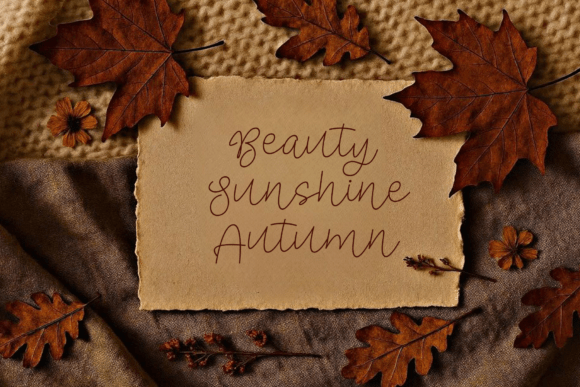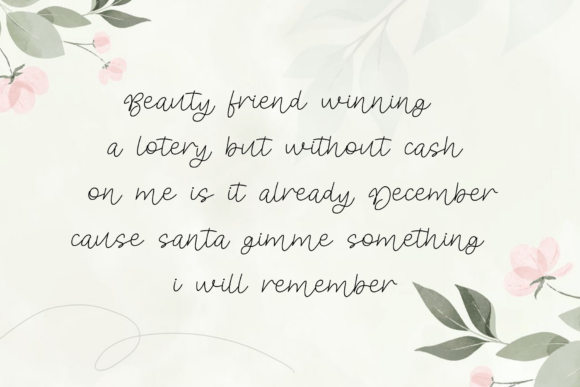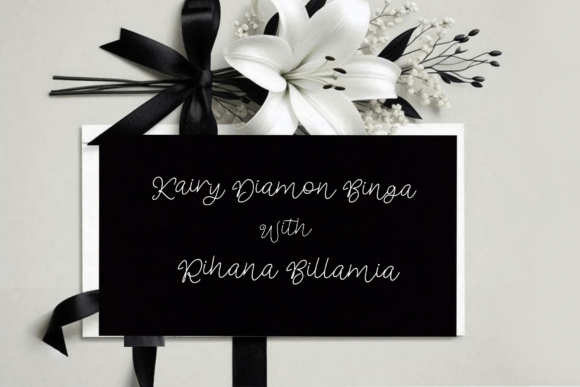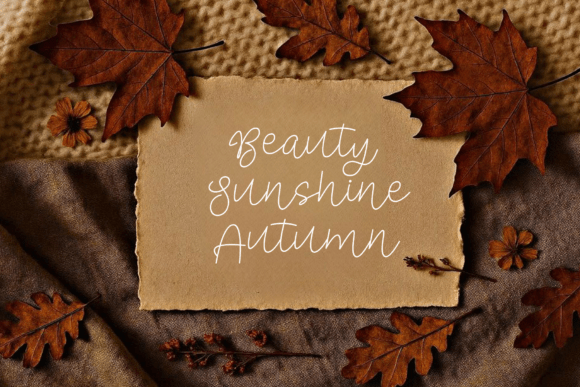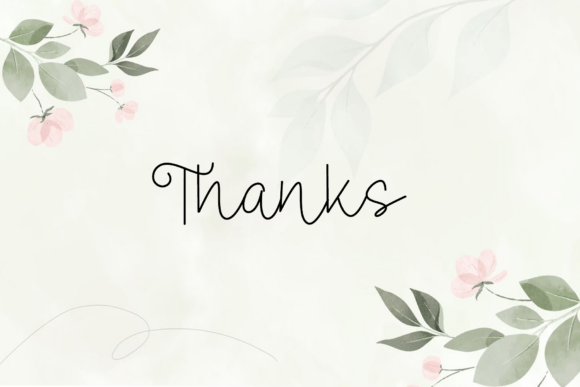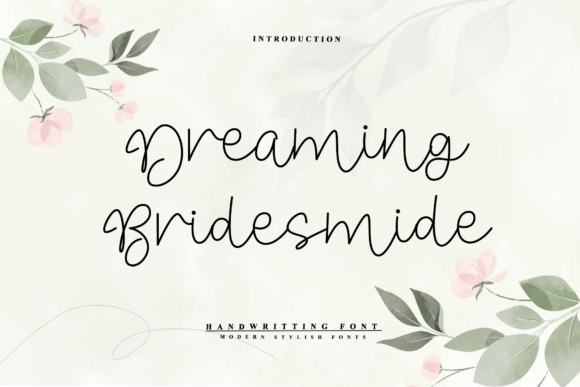
Dreaming Bridesmide Font: Elevate Your Designs with Elegance and Sophistication
In the world of typography, a font can make or break a design. For those seeking a touch of elegance, sophistication, and romance, the Dreaming Bridesmide font is an exquisite choice. This modern, stylized handwritten script font is designed to capture the essence of femininity and professionalism, making it perfect for a wide range of creative projects.
The Beauty of Dreaming Bridesmide
Dreaming Bridesmide is a masterpiece of typographic design, boasting smooth, fluid strokes and lovely ornamental curves that dance across the page. Its consistent weight and clean connections ensure excellent legibility, making it a joy to read and a pleasure to behold. This font is the epitome of a modern, handwritten script, exuding a sense of refinement and poise that is sure to elevate any design.
So, what can you create with the Dreaming Bridesmide font? The possibilities are endless! This versatile font is ideal for:
• Custom Sublimation Designs: Add a touch of elegance to your sublimation designs, whether it’s a personalized mug, tote bag, or phone case.
• Boutique Branding: Elevate your brand with a sophisticated and feminine font that exudes luxury and refinement.
• Personalized Gifts: Create beautiful, one-of-a-kind gifts, such as customized stationery, invitations, or gift tags.
• Custom Stationery: Design stunning stationery, including wedding invitations, thank-you cards, or business cards.
• Any Project Requiring a Touch of Elegance: From packaging design to website headers, Dreaming Bridesmide is the perfect choice for any project that needs a clean, highly stylized, and beautifully functional handwritten script.
Why Choose Dreaming Bridesmide?
With so many fonts available, why choose Dreaming Bridesmide? Here are just a few reasons why this font stands out:
• Feminine and Romantic: Dreaming Bridesmide exudes a sense of femininity and romance, making it perfect for designs that require a touch of elegance.
• Excellent Legibility: The consistent weight and clean connections ensure that your text is easy to read, even at small sizes.
• Highly Versatile: This font can be used for a wide range of creative projects, from custom sublimation designs to boutique branding.
• Modern and Sophisticated: Dreaming Bridesmide is a modern, stylized handwritten script font that is sure to elevate your designs and give them a professional finish.
Tips for Using Dreaming Bridesmide
To get the most out of the Dreaming Bridesmide font, here are a few tips to keep in mind:
• Pair with Neutral Fonts: Pair Dreaming Bridesmide with neutral fonts, such as sans-serif or serif fonts, to create a beautiful contrast and add visual interest to your design.
• Experiment with Colors: Don’t be afraid to experiment with different colors and textures to add depth and dimension to your design.
• Use for Headings and Titles: Dreaming Bridesmide is perfect for headings and titles, where its elegant and sophisticated feel can really shine.
In conclusion, the Dreaming Bridesmide font is a stunning, modern, and stylized handwritten script font that is sure to elevate your designs and give them a touch of elegance and sophistication. With its smooth, fluid strokes, lovely ornamental curves, and excellent legibility, this font is perfect for a wide range of creative projects. Whether you’re a designer, crafter, or DIY enthusiast, Dreaming Bridesmide is a must-have font that will help you create beautiful, professional-looking designs that will leave a lasting impression.